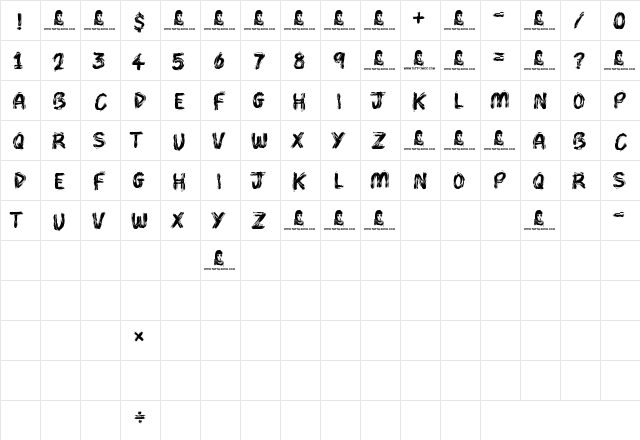
Brush Pains Regular
| Foundry | Jonathan S. Harris |
| Designer | Jonathan Stephen Harris |
Design Context for Brush Pains Typeface
Brush Pains flows with the natural rhythm of handwritten lettering, making it ideal for designs that call for warmth and personal expression.
Font Pairing: Combine Brush Pains with a simple geometric sans for maximum contrast — the tension between flowing curves and clean structure is a classic typographic pairing.
Pro Tip: Use Brush Pains for short runs of text — names, titles, or taglines. Extended body copy in script faces tires the eye quickly.